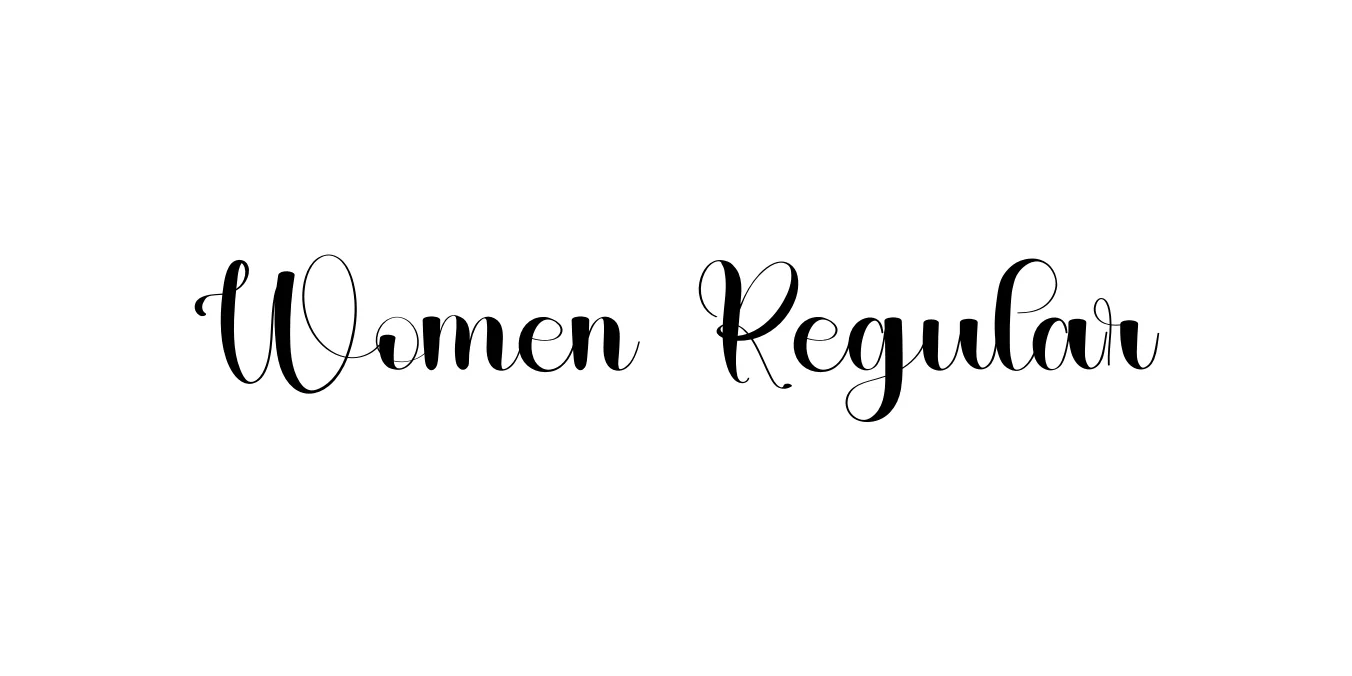
Women Regular
Designed by Billy Argel
Women Regular is a sophisticated and fluid script typeface that embodies elegance and contemporary femininity. Created by the renowned designer Billy Argel, this font features graceful strokes and a natural rhythmic flow that mimics professional calligraphy. It was specifically developed to bridge the gap between traditional handwriting and digital precision, making it a favorite for high-end creative projects.
The typeface excels in lifestyle branding and luxury marketing due to its expressive swashes and delicate lines. Whether used for editorial headers or bespoke invitation suites, Women Regular provides a hand-crafted feel that adds an intimate and personal touch to any layout. Its balanced proportions ensure readability even while maintaining a high level of decorative flair.
Women Regular Best Uses
Perfect for creating romantic and personalized wedding stationery and envelopes.
Ideally suited for fashion boutiques, beauty parlors, and luxury jewelry logos.
Great for creating eye-catching quote graphics and aesthetic Instagram posts.
Works beautifully for lifestyle and fashion magazine titles or pull-quotes.